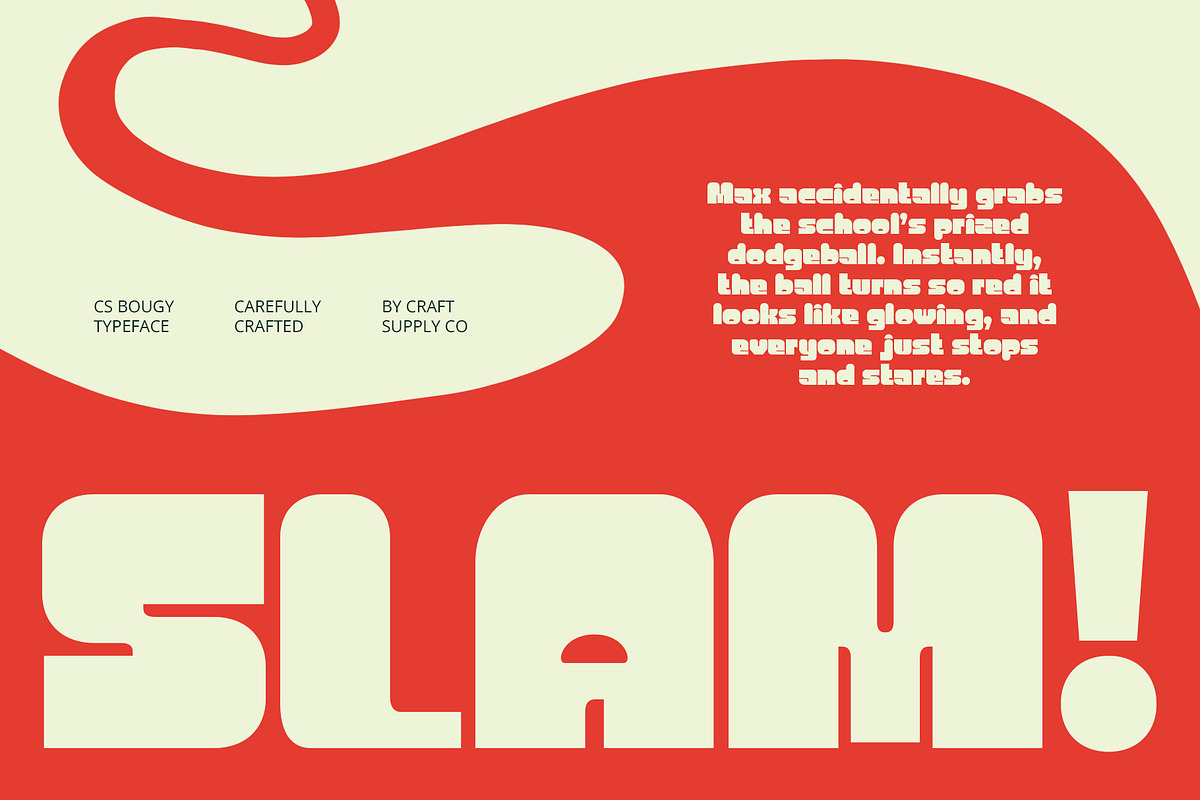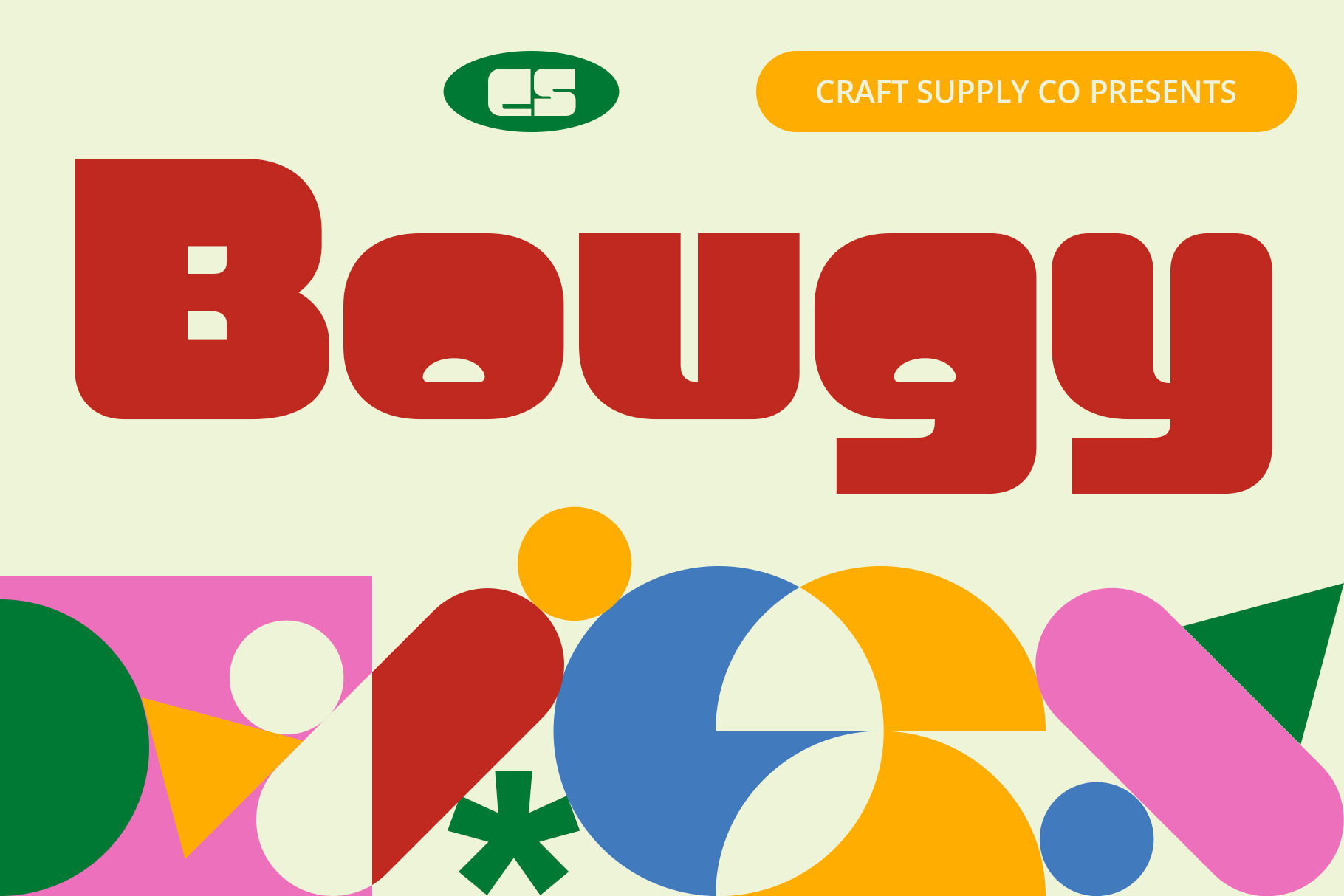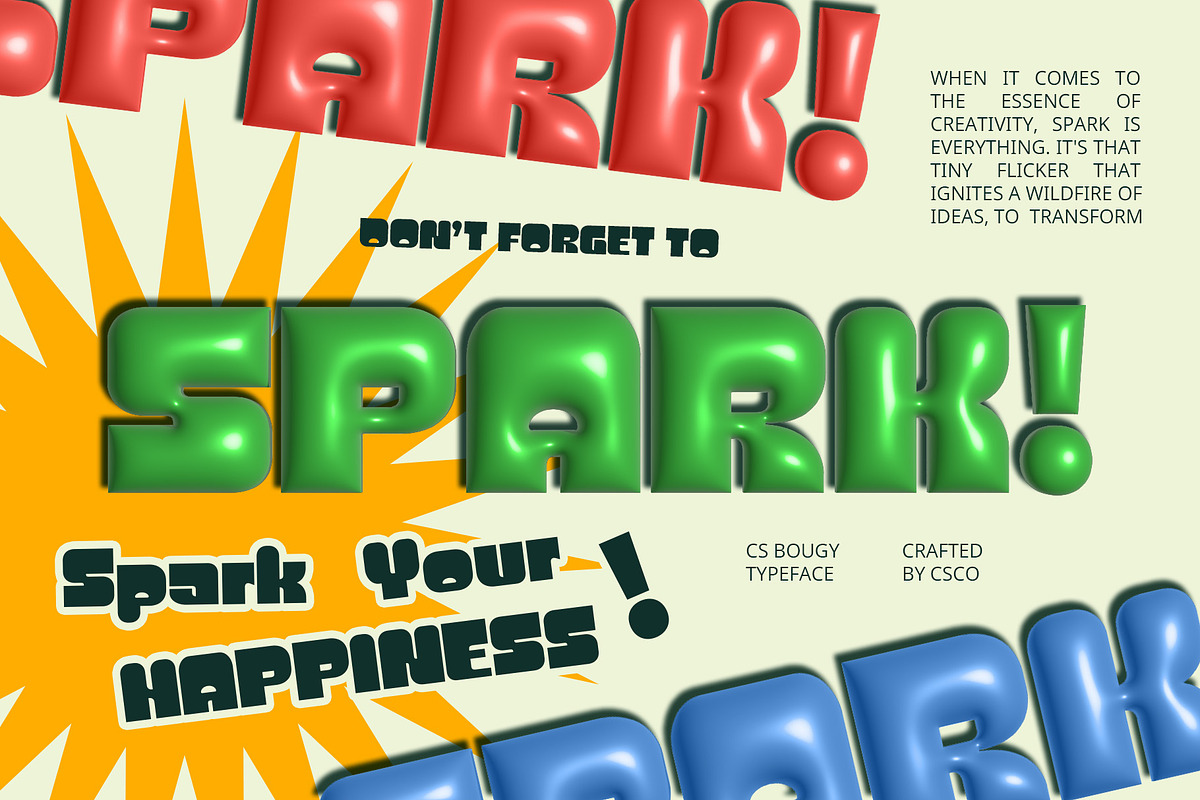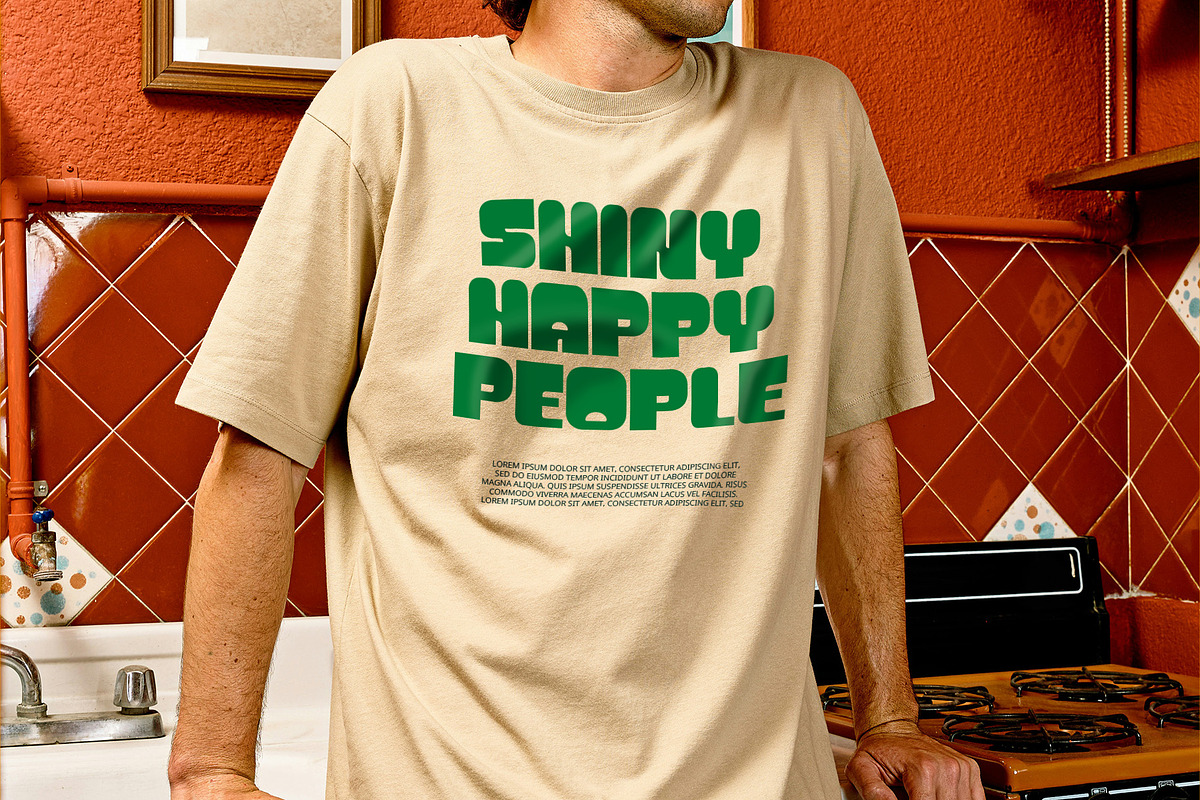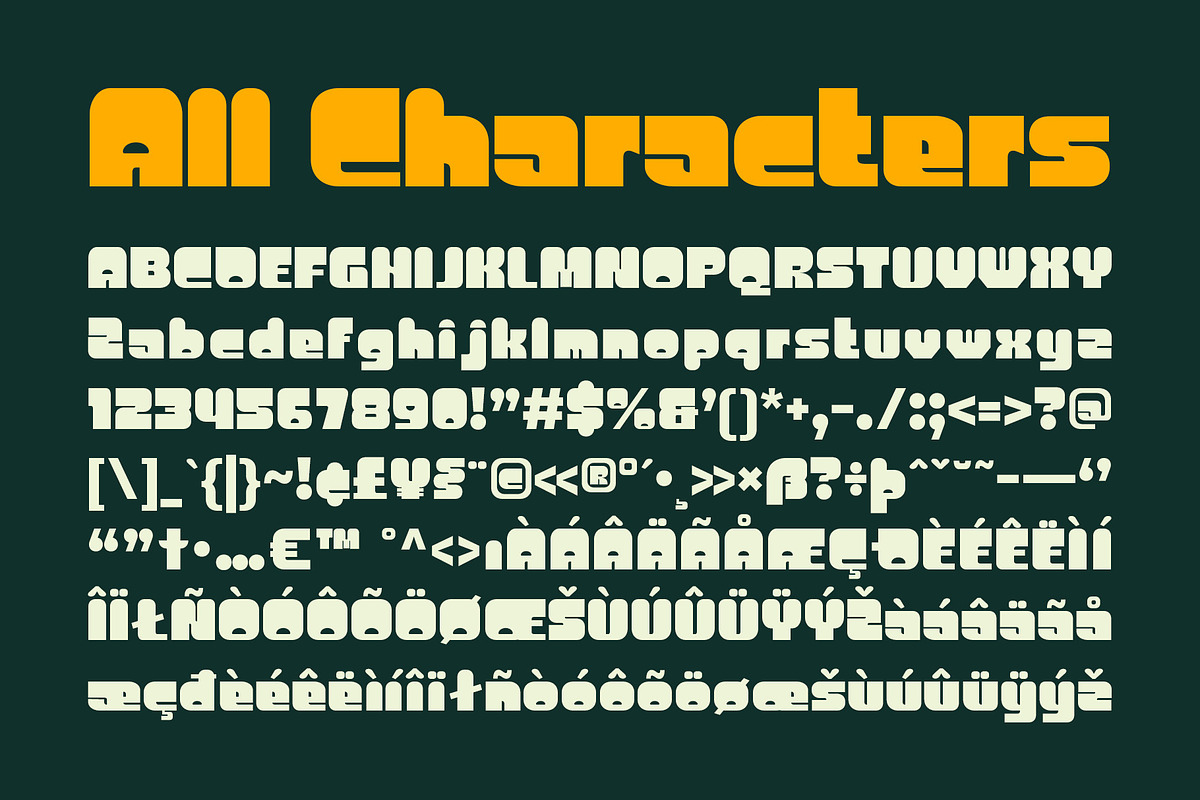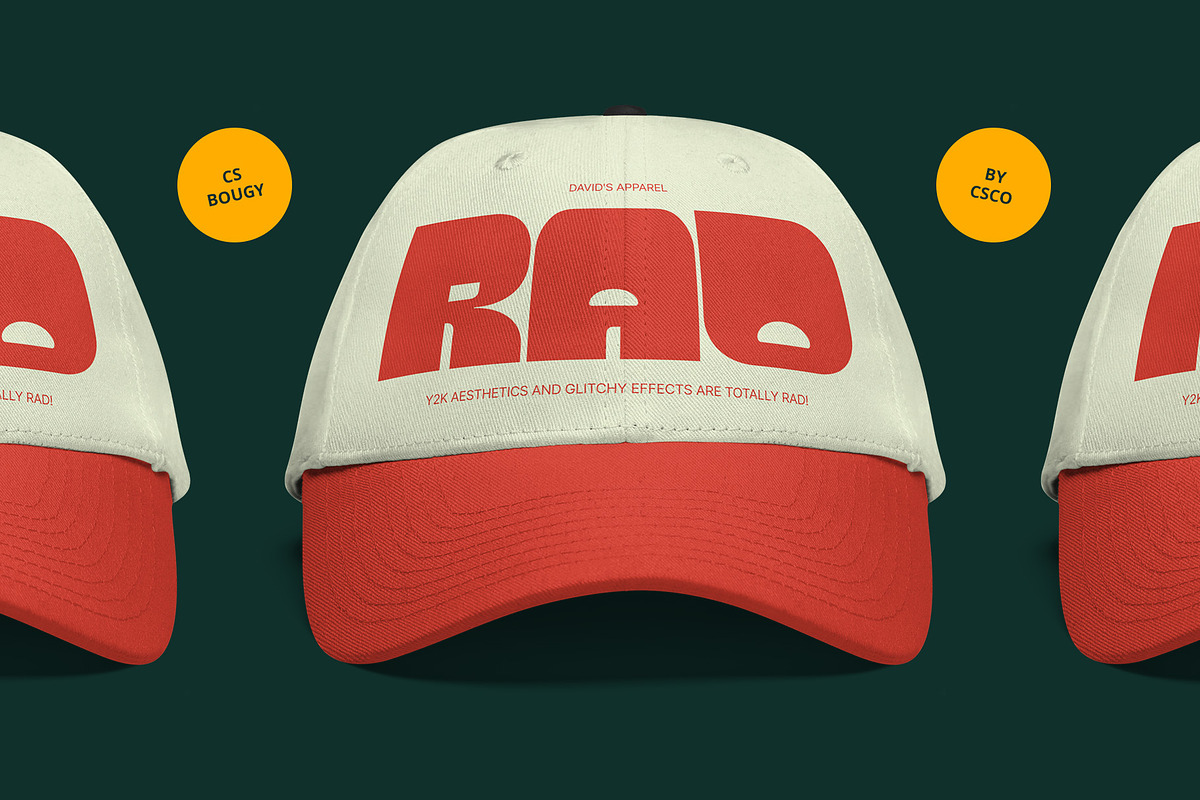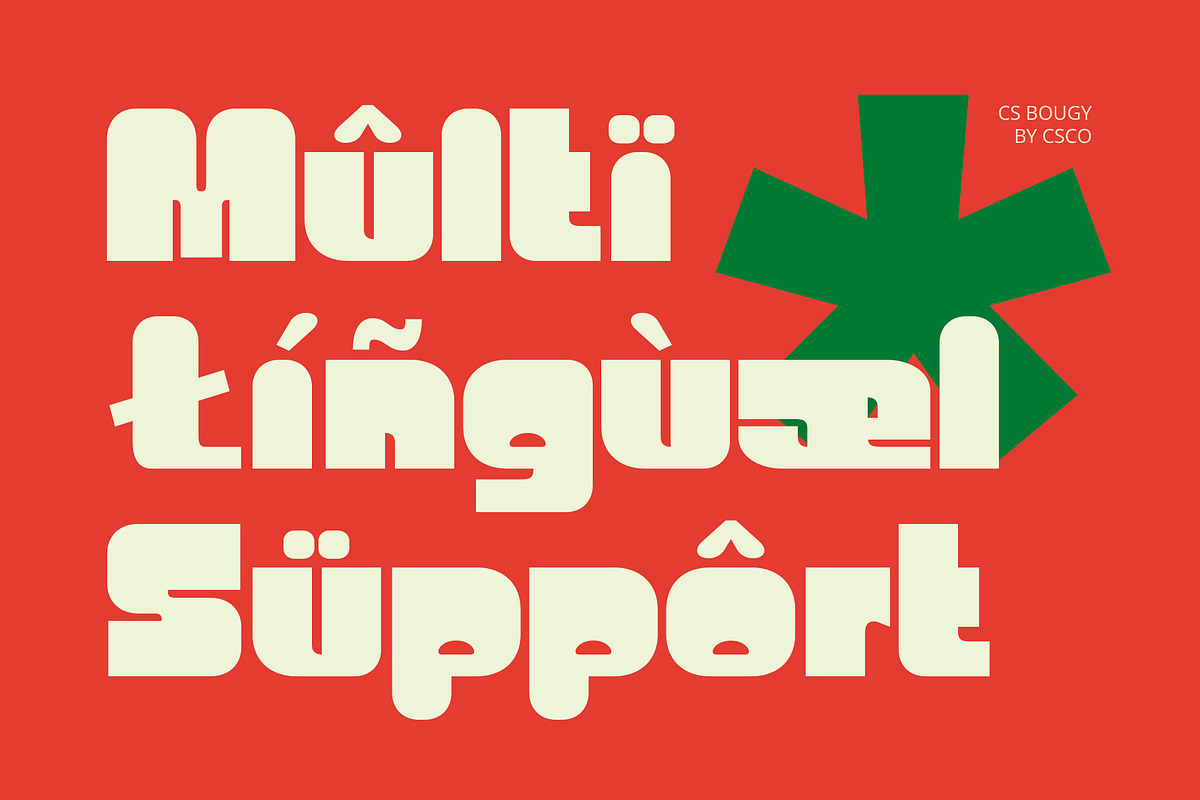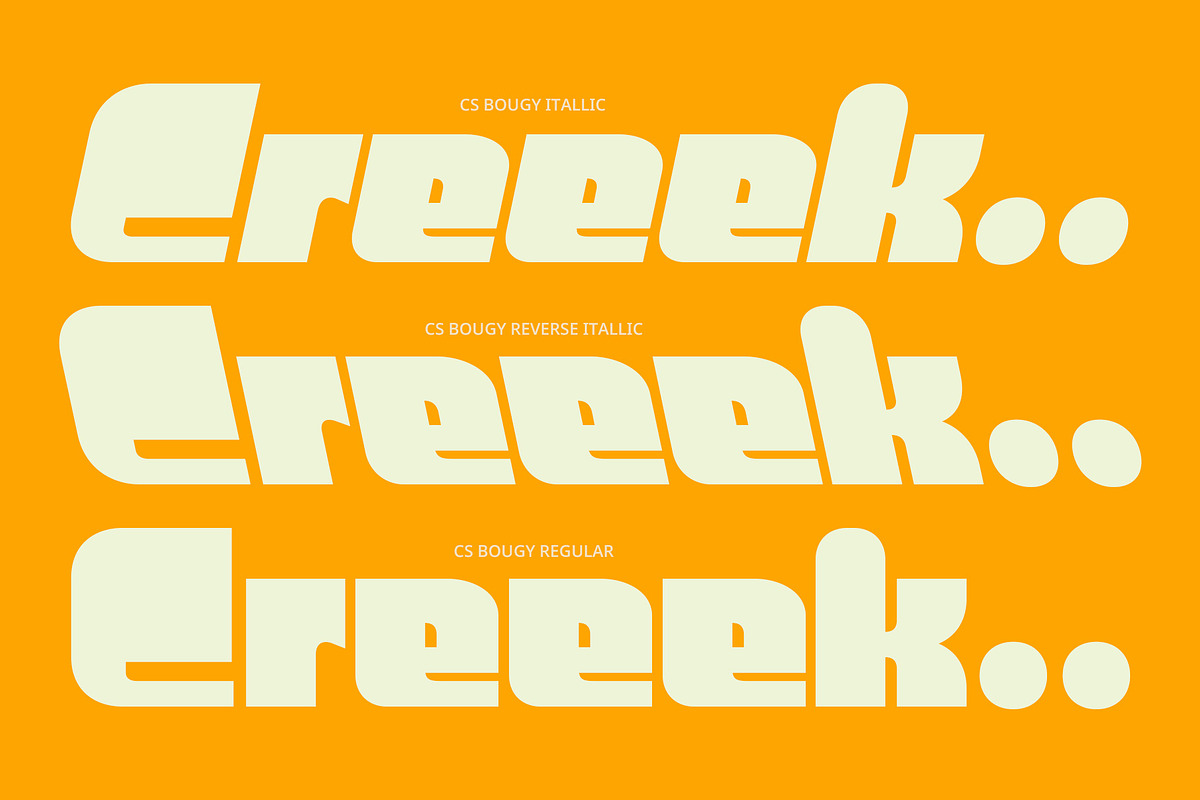
CS Bougy – Y2K Font
CS Bougy – Y2K Font: Bold and Playful with a Retro-Futuristic Twist
Bold Funky Sans-Serif with Y2K Style CS Bougy – Y2K Font is a bold, funky sans-serif typeface that exudes a playful and energetic vibe. Reflecting the vibrant and futuristic aesthetics of the early 2000s, this font brings a fresh, non-stiff character to any design project.
Retro-Futuristic Appeal of the 2000s Embodying the Y2K style, CS Bougy captures the spirit of the 2000s with a modern twist. Its dynamic shapes and spirited design elements evoke a sense of retro-futurism, making it perfect for projects that aim to celebrate the unique and lively aesthetic of the Y2K era.
Ideal for Bold and Energetic Designs Whether you’re working on bold branding, eye-catching music posters, or any design that requires a dynamic and spirited impression, CS Bougy delivers with flair. Its energetic appearance ensures that your projects stand out with a vibrant, distinctive look that captures attention and conveys a fun, modern feel.
Versatile for Spirited and Modern Applications CS Bougy’s unique combination of boldness and playfulness makes it versatile for a range of applications. Its Y2K style adds a touch of nostalgic charm while maintaining a contemporary edge, making it an excellent choice for designs that aim to impress and engage with a spirited, youthful energy.
- CS Bougy Regular
- CS Bougy Italic
- CS Bougy Reverse Italic